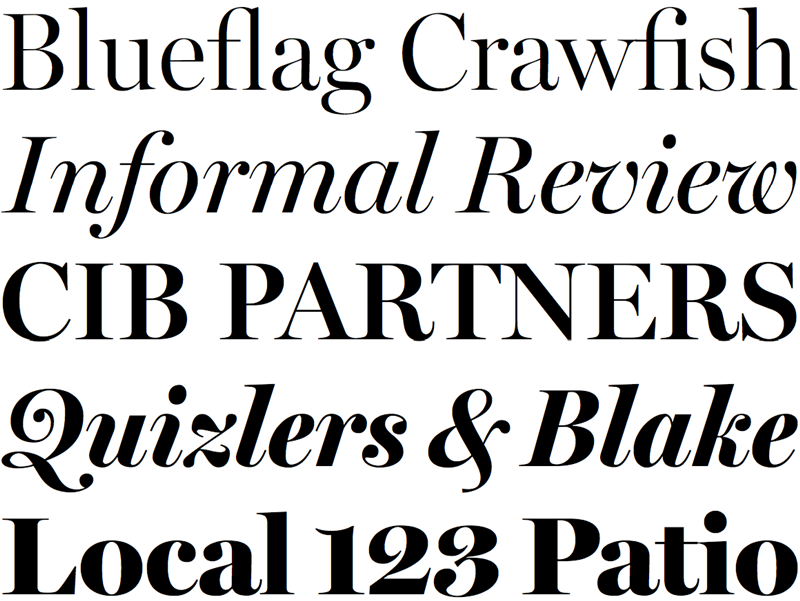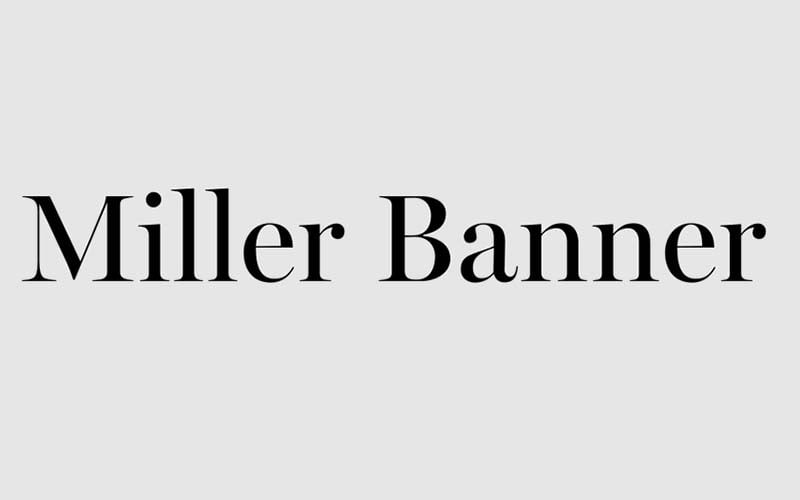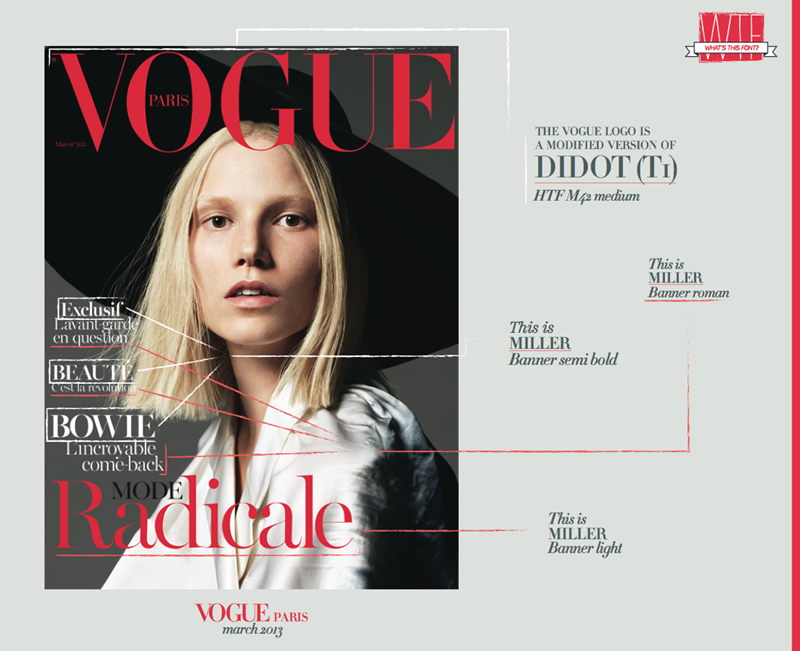
Miller Banner Font
Miller Banner Font - Web miller banner is a chic and elegant serif font family that was designed by matthew carter and published by carter. Miller banner takes matthew carter’s popular miller series to new heights: Web complete family of 10 fonts: 100pt and up, beyond any examples. Miller banner font family was designed by matthew carter and published by carter &.
Miller banner takes matthew carter’s popular miller series to new heights: Web complete family of 10 fonts: 100pt and up, beyond any examples. Miller banner font family was designed by matthew carter and published by carter &. Web miller banner is a chic and elegant serif font family that was designed by matthew carter and published by carter.
Web complete family of 10 fonts: 100pt and up, beyond any examples. Web miller banner is a chic and elegant serif font family that was designed by matthew carter and published by carter. Miller banner font family was designed by matthew carter and published by carter &. Miller banner takes matthew carter’s popular miller series to new heights:
Miller banner takes matthew carter’s popular miller series to new heights: Web miller banner is a chic and elegant serif font family that was designed by matthew carter and published by carter. Web complete family of 10 fonts: Miller banner font family was designed by matthew carter and published by carter &. 100pt and up, beyond any examples.
Miller banner takes matthew carter’s popular miller series to new heights: Web complete family of 10 fonts: Web miller banner is a chic and elegant serif font family that was designed by matthew carter and published by carter. Miller banner font family was designed by matthew carter and published by carter &. 100pt and up, beyond any examples.
Web complete family of 10 fonts: Miller banner takes matthew carter’s popular miller series to new heights: 100pt and up, beyond any examples. Web miller banner is a chic and elegant serif font family that was designed by matthew carter and published by carter. Miller banner font family was designed by matthew carter and published by carter &.
100pt and up, beyond any examples. Web complete family of 10 fonts: Web miller banner is a chic and elegant serif font family that was designed by matthew carter and published by carter. Miller banner font family was designed by matthew carter and published by carter &. Miller banner takes matthew carter’s popular miller series to new heights:
Web complete family of 10 fonts: Miller banner takes matthew carter’s popular miller series to new heights: Web miller banner is a chic and elegant serif font family that was designed by matthew carter and published by carter. 100pt and up, beyond any examples. Miller banner font family was designed by matthew carter and published by carter &.
100pt and up, beyond any examples. Web miller banner is a chic and elegant serif font family that was designed by matthew carter and published by carter. Miller banner font family was designed by matthew carter and published by carter &. Web complete family of 10 fonts: Miller banner takes matthew carter’s popular miller series to new heights:
Miller banner takes matthew carter’s popular miller series to new heights: Miller banner font family was designed by matthew carter and published by carter &. Web complete family of 10 fonts: 100pt and up, beyond any examples. Web miller banner is a chic and elegant serif font family that was designed by matthew carter and published by carter.
Fonte Miller Banner by Matthew Carter & Richard Lipton Matthew
Web complete family of 10 fonts: Miller banner takes matthew carter’s popular miller series to new heights: 100pt and up, beyond any examples. Web miller banner is a chic and elegant serif font family that was designed by matthew carter and published by carter. Miller banner font family was designed by matthew carter and published by carter &.
Miller Banner Font Fontspring
Web miller banner is a chic and elegant serif font family that was designed by matthew carter and published by carter. 100pt and up, beyond any examples. Miller banner takes matthew carter’s popular miller series to new heights: Web complete family of 10 fonts: Miller banner font family was designed by matthew carter and published by carter &.
Identifont Miller Banner Black
Web complete family of 10 fonts: Miller banner font family was designed by matthew carter and published by carter &. Miller banner takes matthew carter’s popular miller series to new heights: 100pt and up, beyond any examples. Web miller banner is a chic and elegant serif font family that was designed by matthew carter and published by carter.
Miller Banner Font Family Was Designed By Matthew Carter And Published By Carter &.
100pt and up, beyond any examples. Miller banner takes matthew carter’s popular miller series to new heights: Web miller banner is a chic and elegant serif font family that was designed by matthew carter and published by carter. Web complete family of 10 fonts: